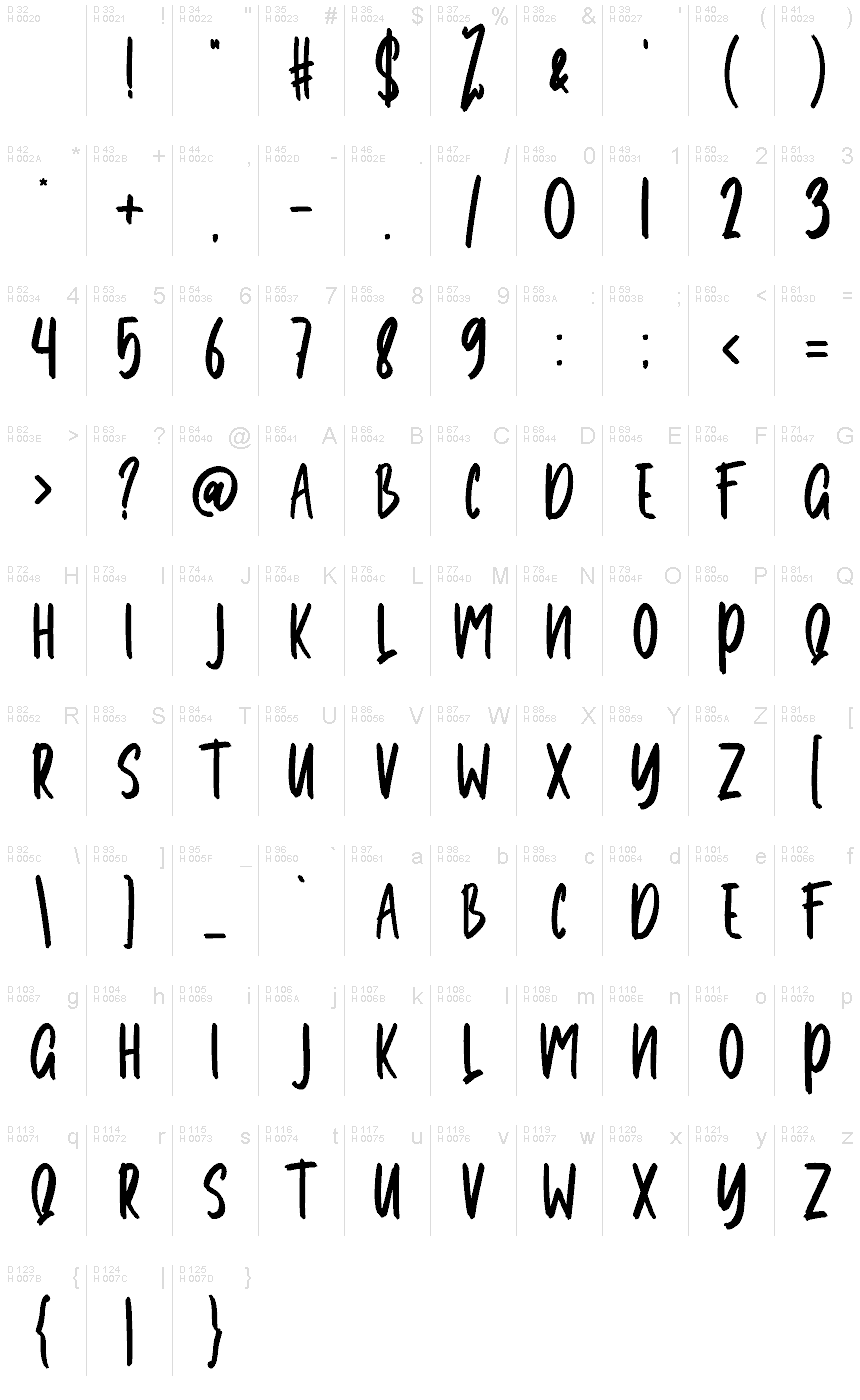
Trivala
Trivala font by Skiiller Studio is a fluid and expressive handwritten font that combines simplicity with elegance. Its condensed strokes deliver a clean yet vibrant appearance, making it an excellent choice to add a personal touch to your designs. The casual appearance means you don’t have to stick to one form or one style, but can rather experiment at will from start till end.